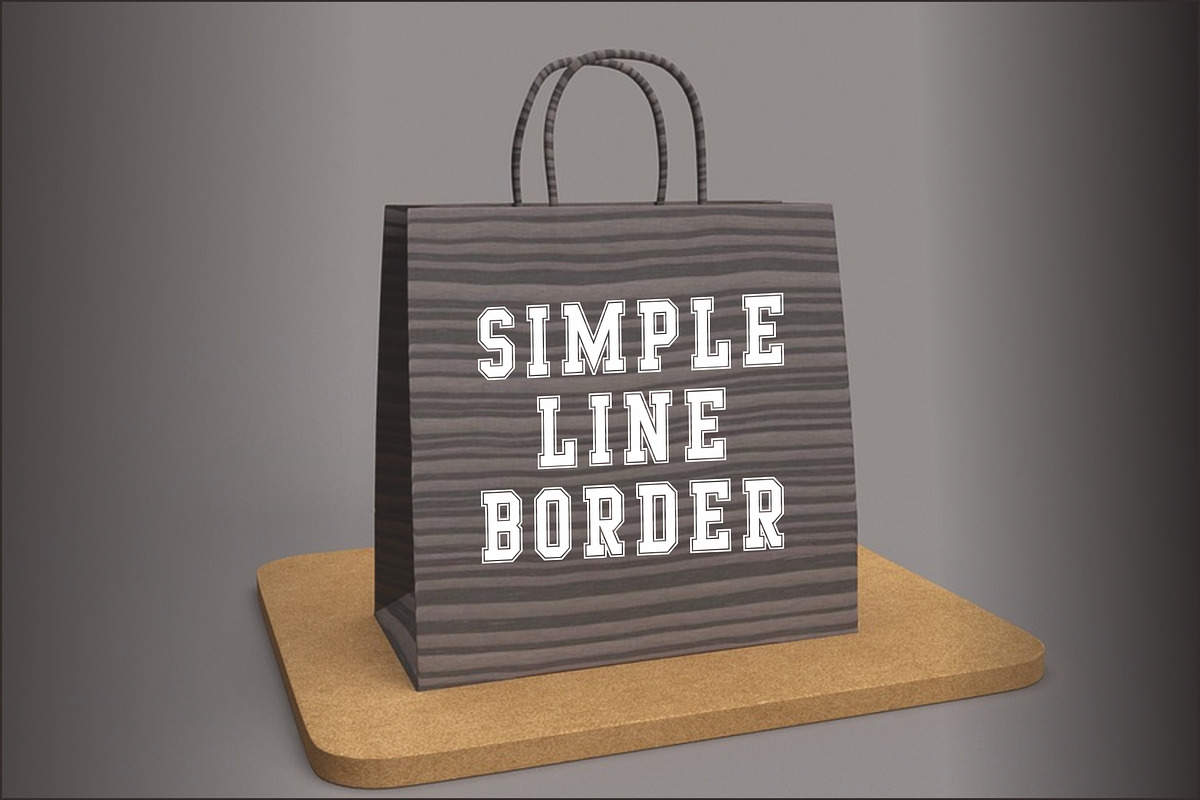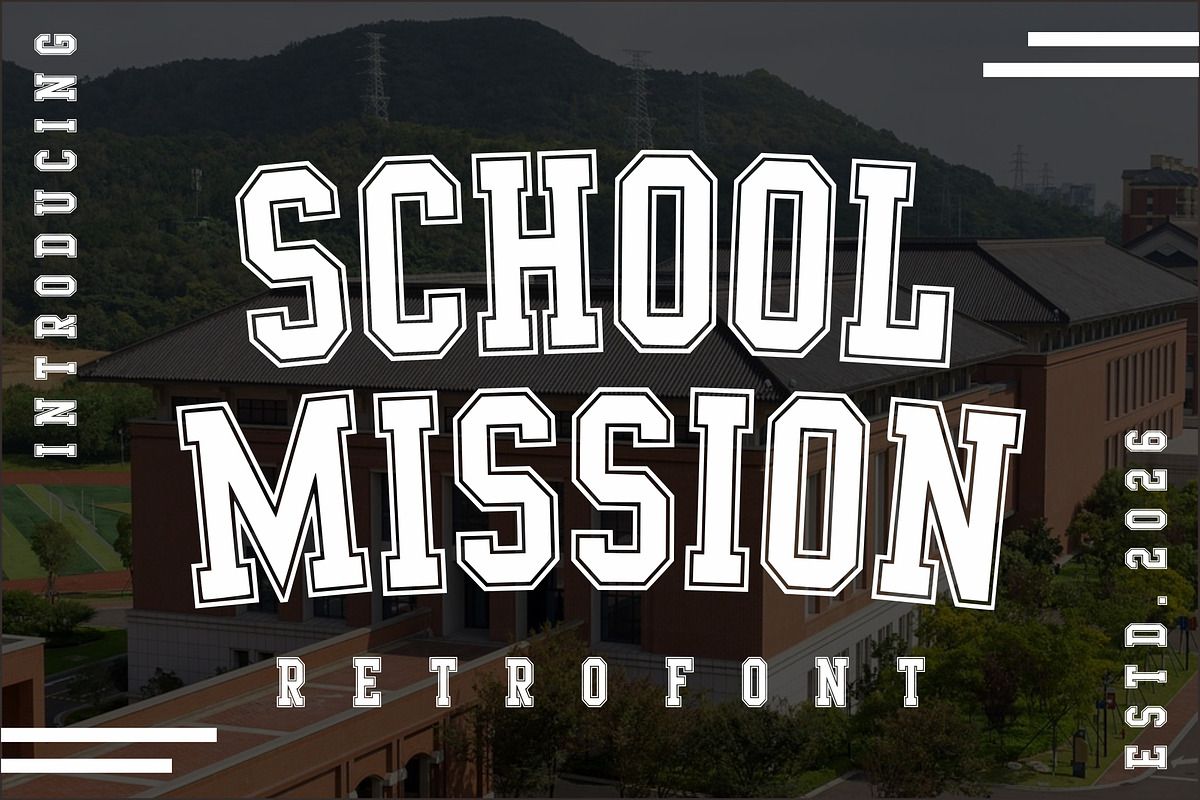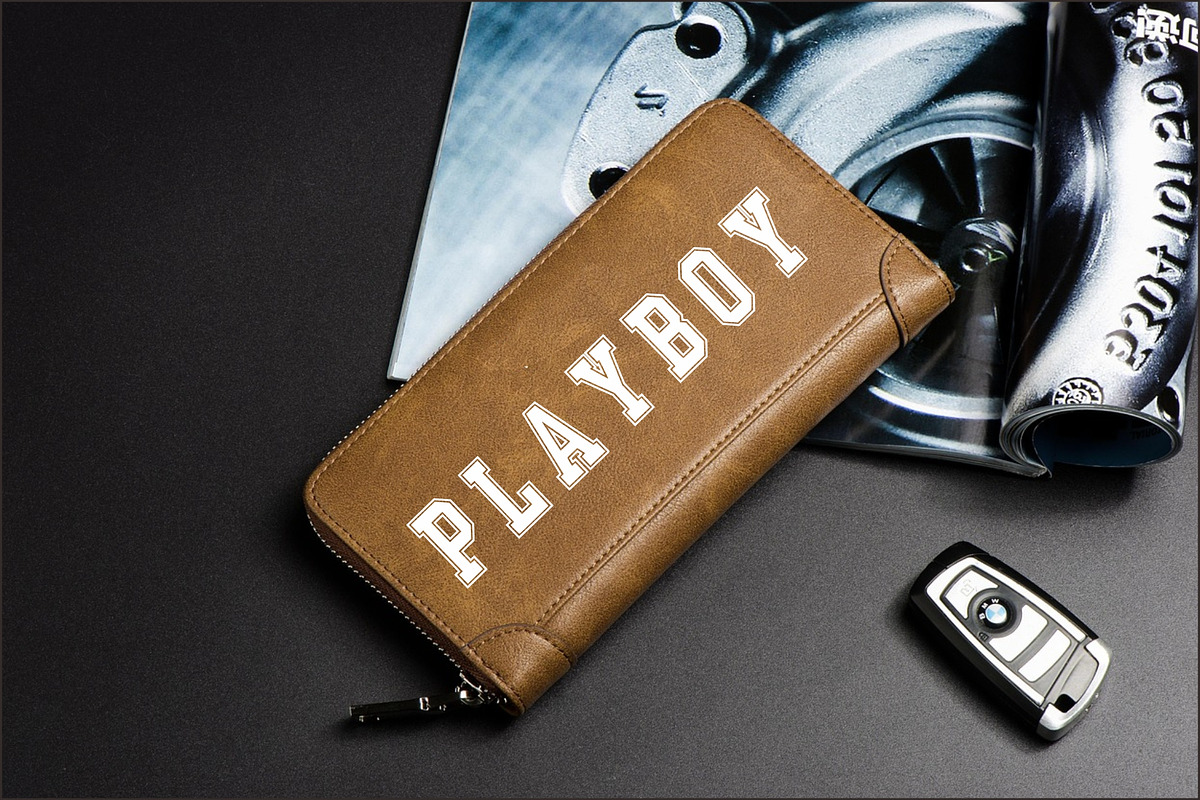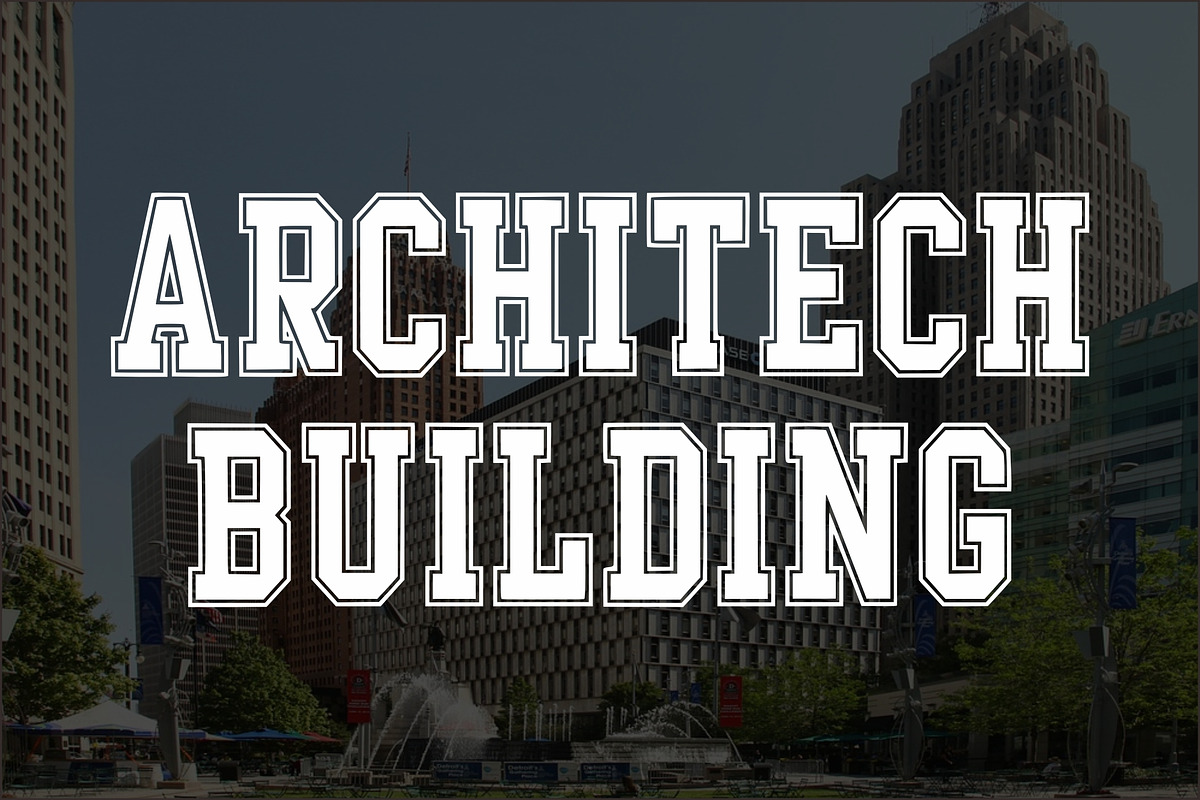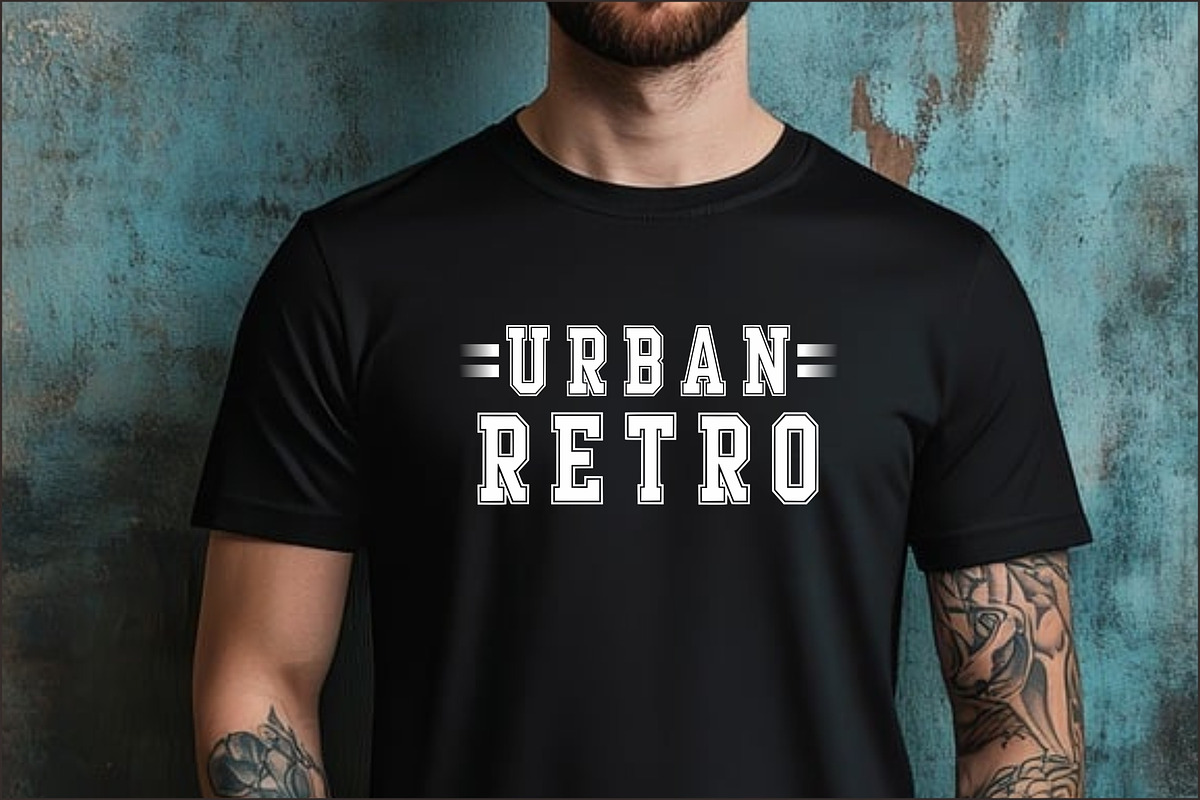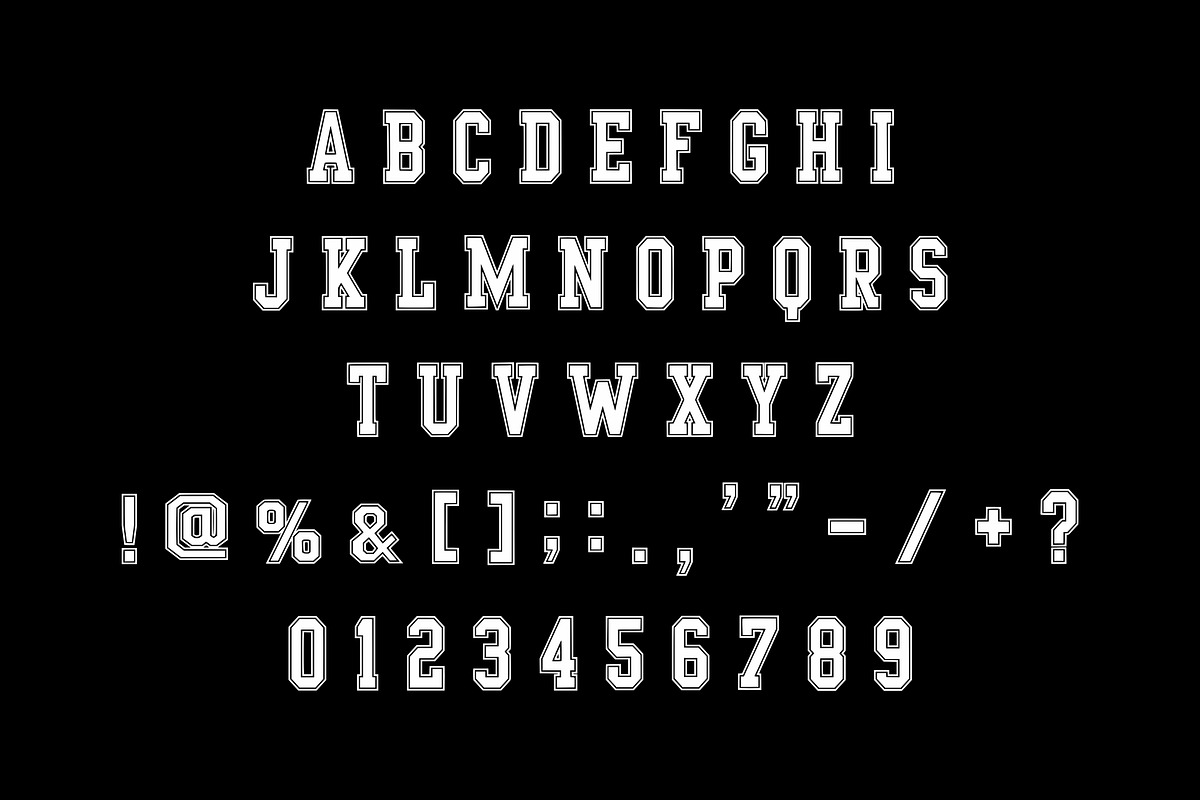
School Mission
School Mission is a retro varsity-style display font inspired by classic typography of American schools and sports teams.
This School Mission typeface features a strong, collegiate-style slab serif with a distinctive outline and inner shadow effect, making it the ultimate choice for varsity-themed apparel and team logos. The School Mission font commands authority on posters and sports branding, delivering a nostalgic yet powerful aesthetic that never goes out of style. By utilizing the School Mission typeface, you can create high-impact designs that feel established and energetic, especially when paired with bold primary colors and athletic graphics.
With bold letterforms, contrasting outlines, and strong, masculine characters, this font is perfect for headlines, posters, logos, apparel designs, and educational and sports-themed branding needs.
This font conveys a bold, professional, and distinctive feel. It’s ideal for school, college, and university-themed designs, retro badges, sports jerseys, and even bold-statement social media content.
Add a powerful, classic touch to any design project with School Mission.